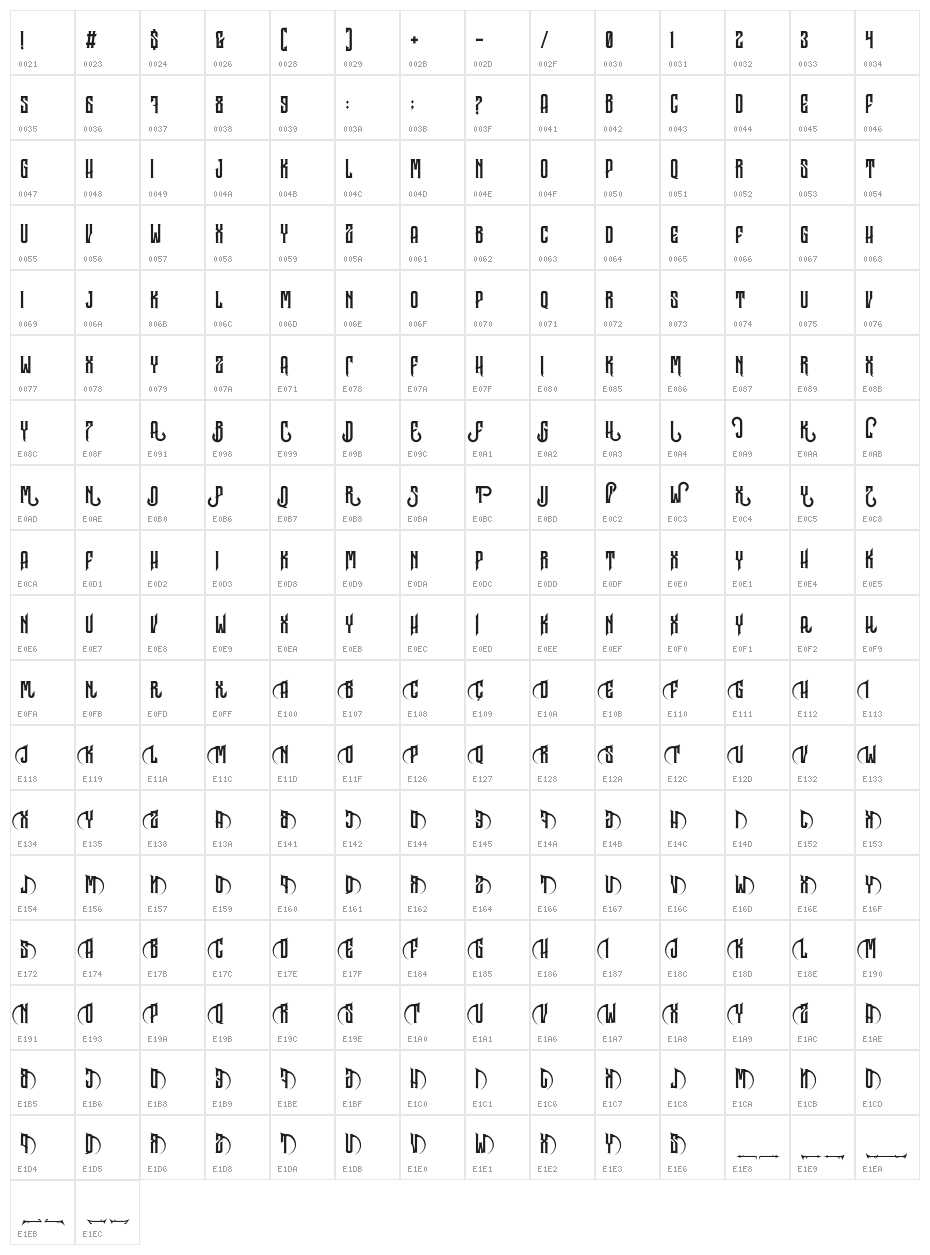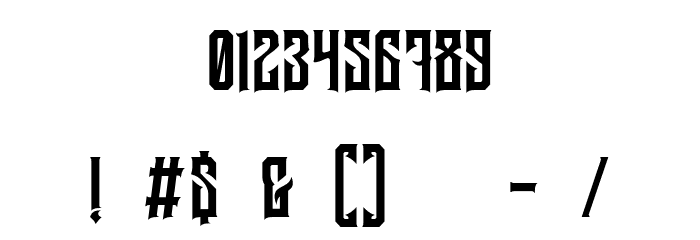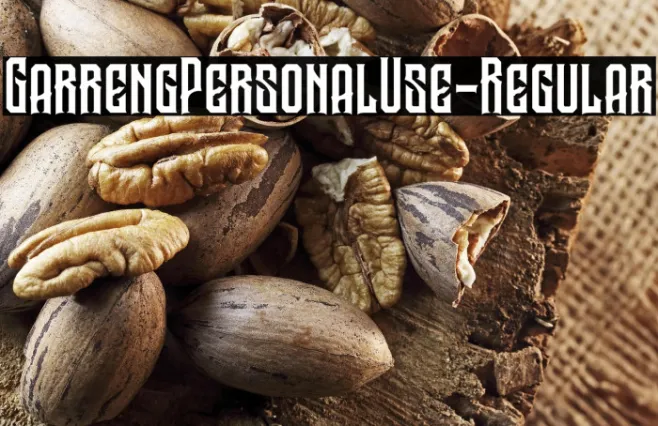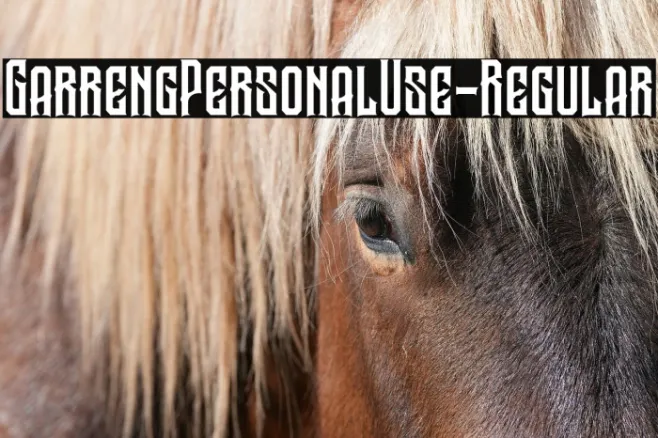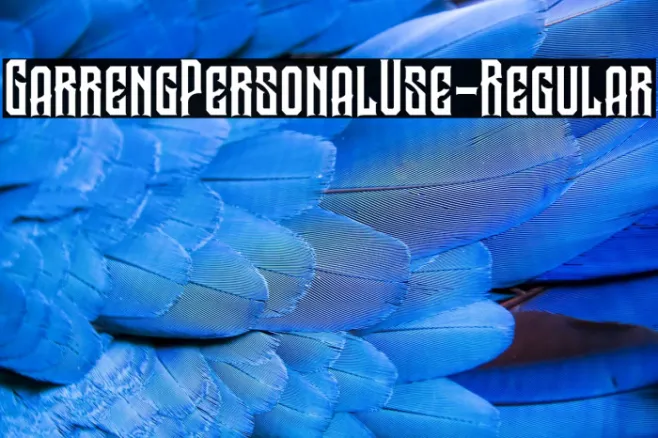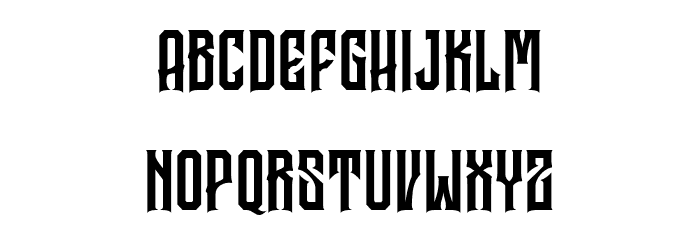
GarrengPersonalUse-Regular Font
GarrengPersonalUse-Regular Description
This font features a bold and striking design with sharp, angular edges and a distinct Gothic influence. The uppercase and lowercase letters maintain a consistent height, creating a uniform appearance. The characters are tightly spaced, enhancing the compact and impactful look. The numbers and special characters follow the same stylistic approach, ensuring a cohesive visual identity across all elements. The font's high contrast in stroke thickness adds to its dramatic and eye-catching appeal, making it suitable for projects that require a strong visual presence.
| Proposed Projects | Ideal for branding, posters, album covers, and any design that requires a bold, dramatic statement. |